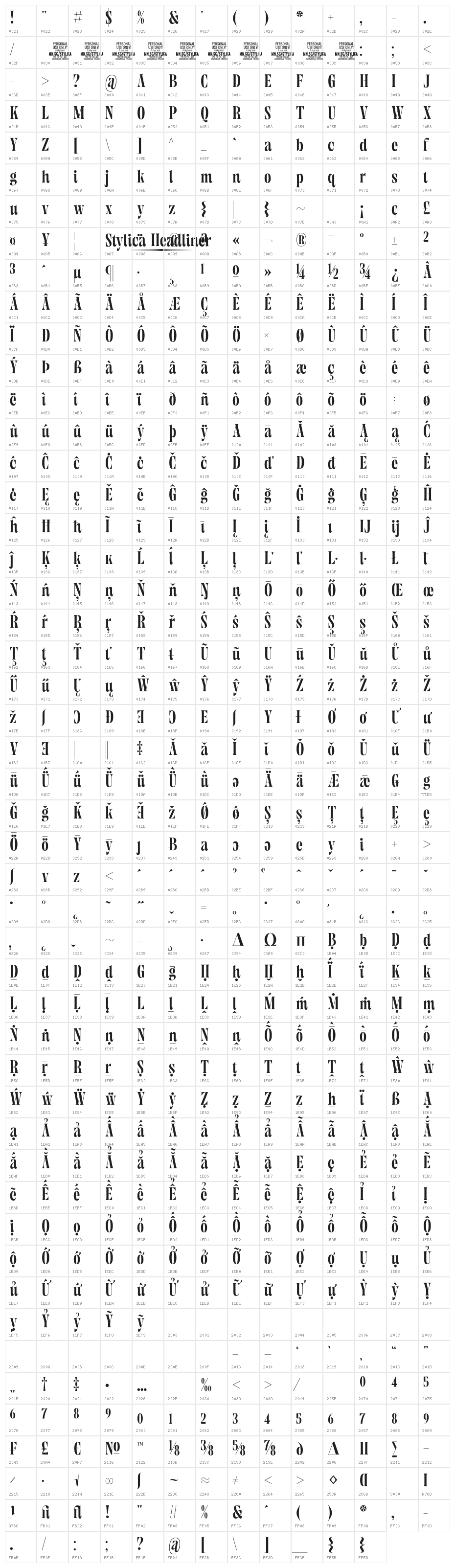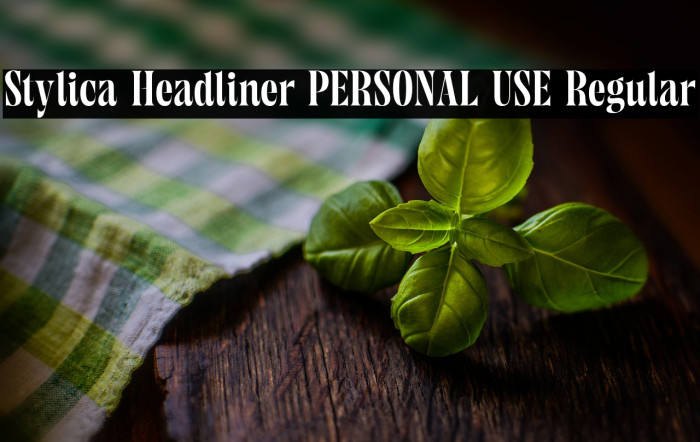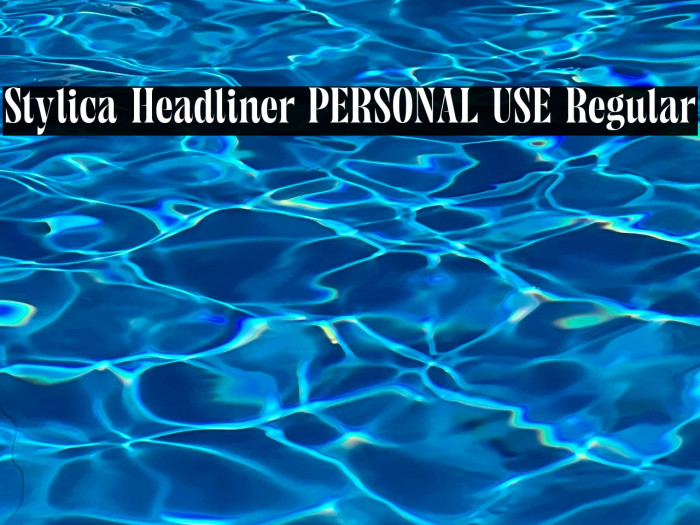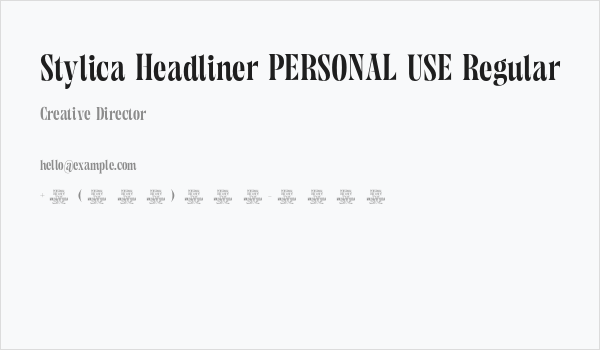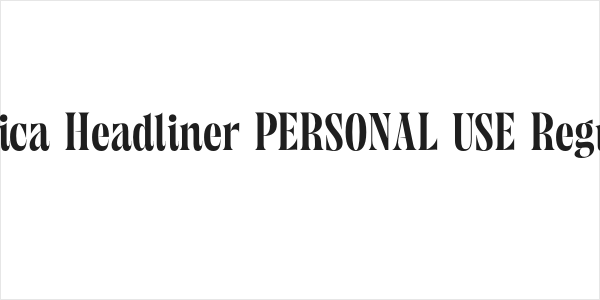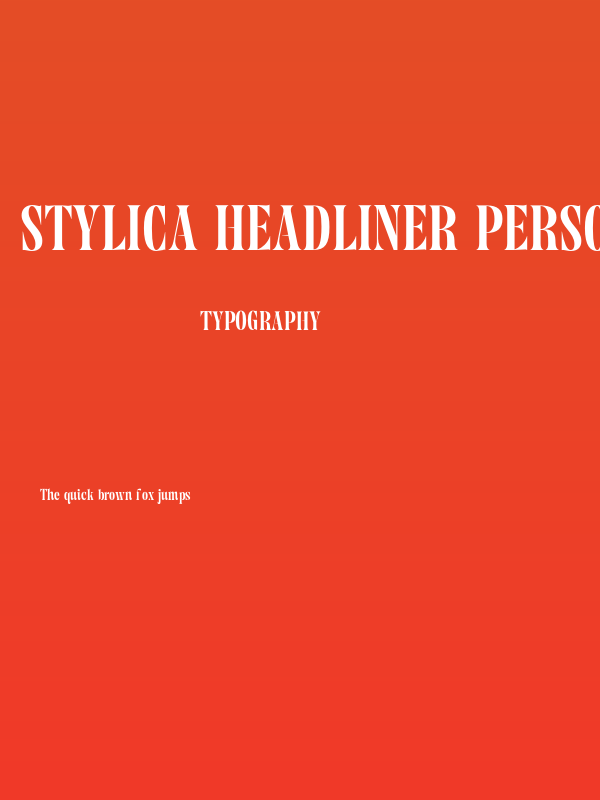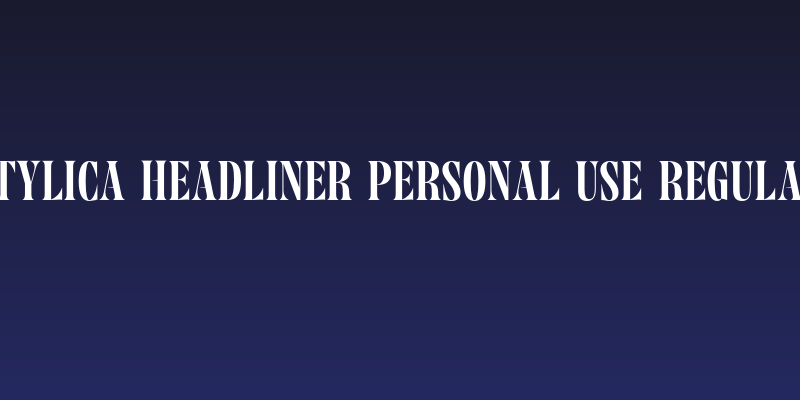
Stylica Headliner PERSONAL USE Regular Font
Stylica Headliner PERSONAL USE Regular Description
This font features a bold and striking design with high contrast between thick and thin strokes, giving it a dramatic and eye-catching appearance. The uppercase letters are tall and commanding, while the lowercase letters maintain a consistent style with slightly more rounded forms. The serifs are sharp and pronounced, adding to the font's overall elegance and sophistication. The numbers and special characters are designed to match the boldness of the alphabet, ensuring a cohesive look across all text elements. This font is ideal for making a strong visual impact.